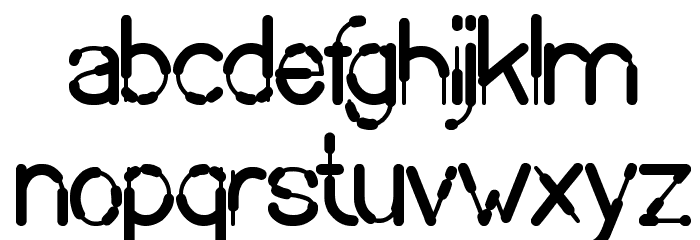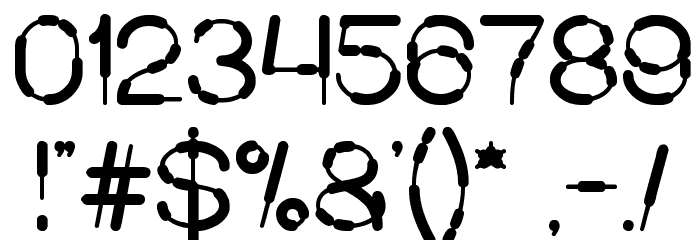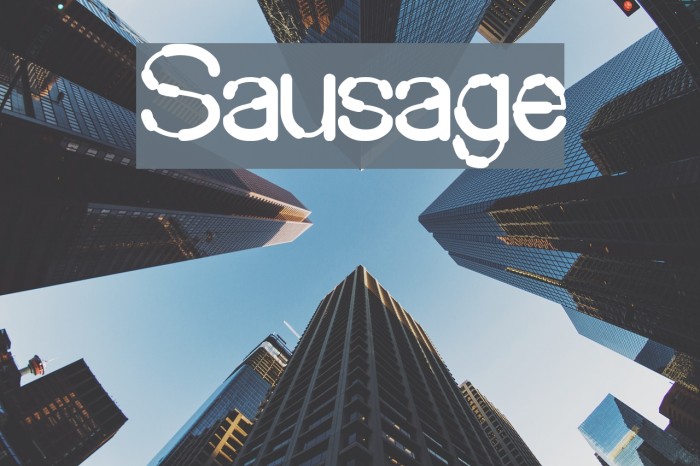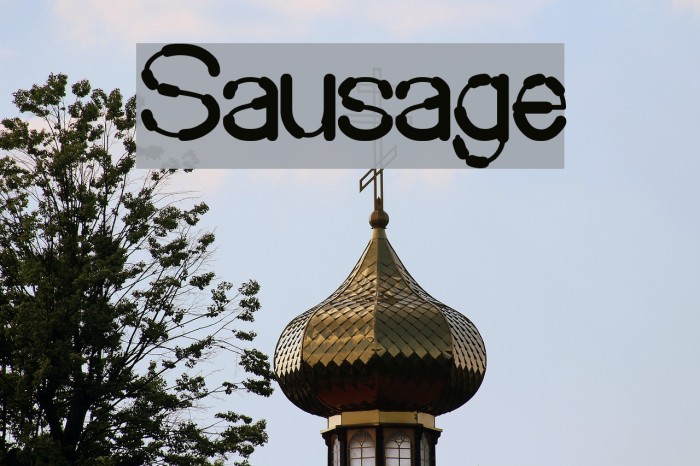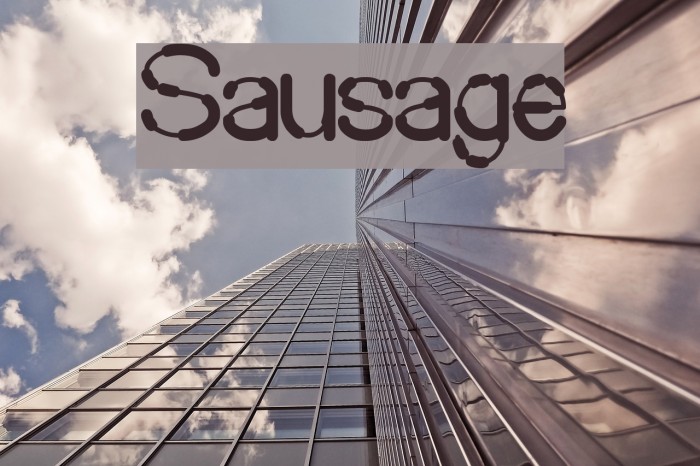
Sausage Font
This font features a unique and playful design with a sausage-like appearance. The characters are formed with rounded, tubular shapes that give a whimsical and informal feel. The uppercase and lowercase letters maintain a consistent style, with smooth curves and a slightly irregular outline that adds to the playful nature. Numbers and special characters follow the same design principles, ensuring a cohesive look across all elements. The font's distinct style makes it stand out, offering a fun and creative option for various design projects.
A playful, sausage-like font with rounded, tubular shapes.
- Proposed Projects: Ideal for children's books, playful branding, food packaging, and creative posters.
- Overall Style: Playful, Whimsical
- Use Case: Logos, Posters, Creative projects